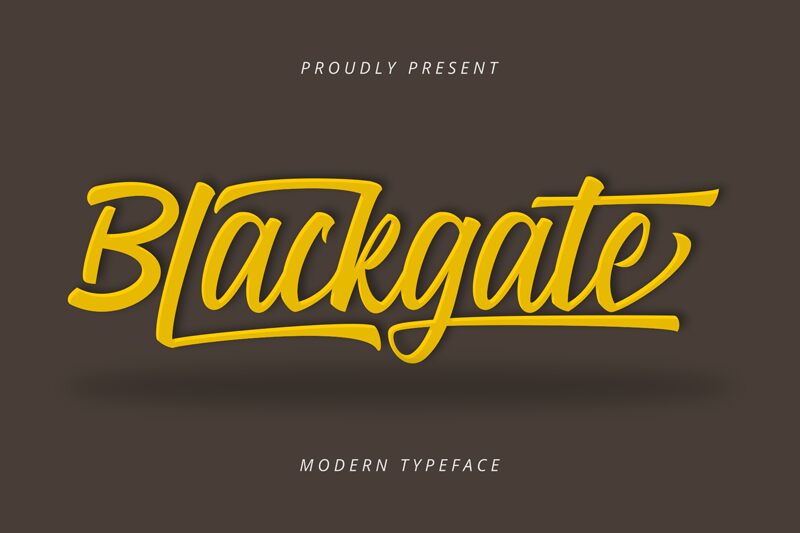
Blackgate
Blackgate, a captivating handwritten font crafted by Danik Janandi, exudes a bold, expressive essence. Its sweeping strokes and dynamic curves captivate the eye, evoking a sense of artistry and individuality. The font's distinct personality shines through in its seamless ligatures and fluid transitions, creating a visually engaging and versatile typographic solution.
This font's versatility makes it a compelling choice for a wide range of design applications. Its strong, impactful appearance lends itself well to branding and logo design, while its organic flow and personality can elevate editorial layouts, packaging, and marketing collateral. Blackgate's expressive nature also makes it a suitable selection for projects seeking to convey a sense of authenticity, creativity, and personal flair.